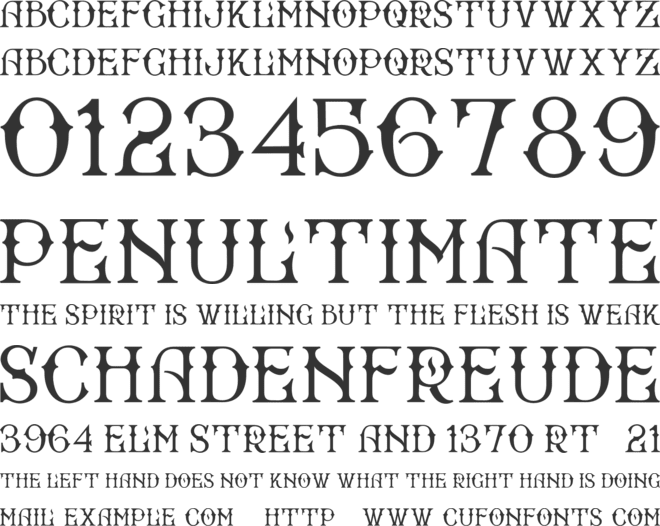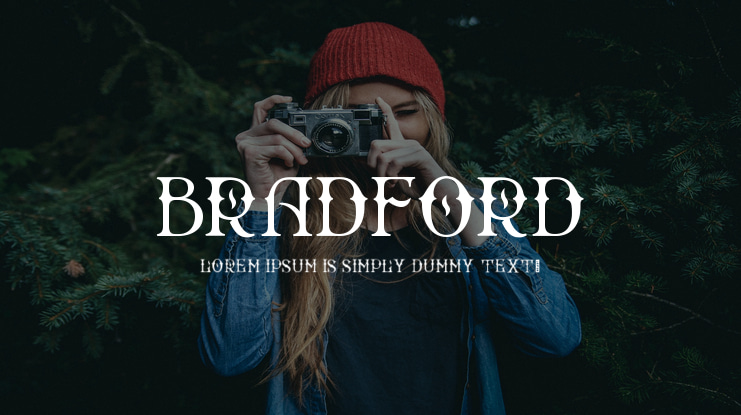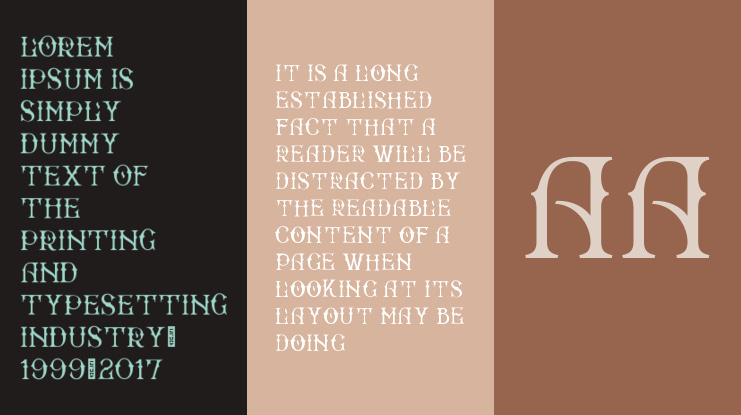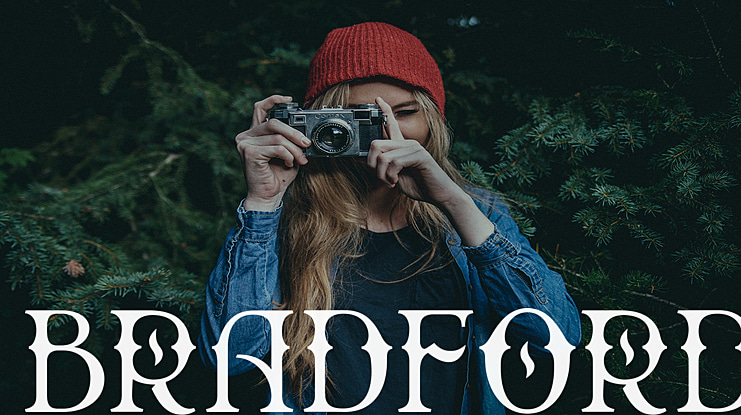
Bradford Font
Bradford is inspired by the old-fashioned display, traditional sign-writing and some ancient packaging in early 1900 that used primarily to create the ephemera of everyday life, the ubiquitous letter-heads, trade cards, advertising circulars and bills that serve an immediate purpose. WT Bradford Full Version consists of capitals alphabets with glyph alternates in some letters. There is also unique ligatures that you can play & match with any words or sentence that fit with your design project. You may also want to access some catchwords like “to” and “and” located in the discretionary ligature slots. You could easily access it just in seconds with any softwares, the instruction is included in the download pack. Set includes in 3 styles: Regular, Press (distressed) and inline.